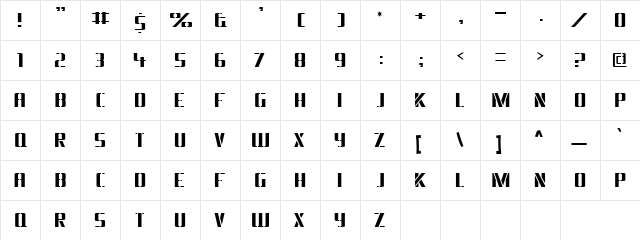
Jack Tracy Regular
Design Context for Jack Tracy Typeface
Jack Tracy is a composed and adaptable typeface that performs quietly and consistently across a wide range of design contexts.